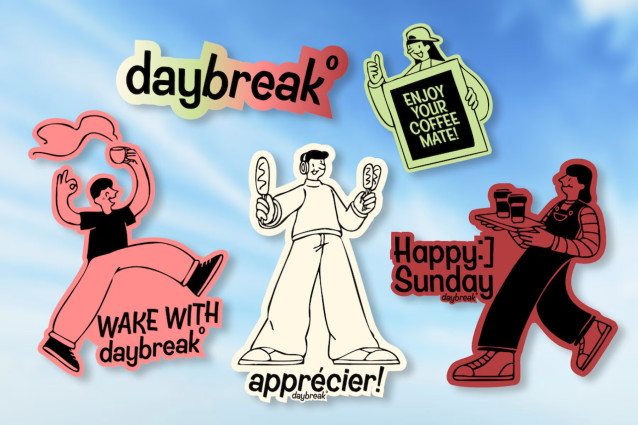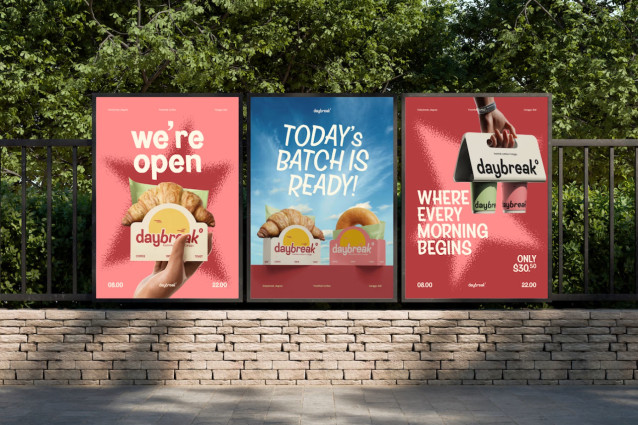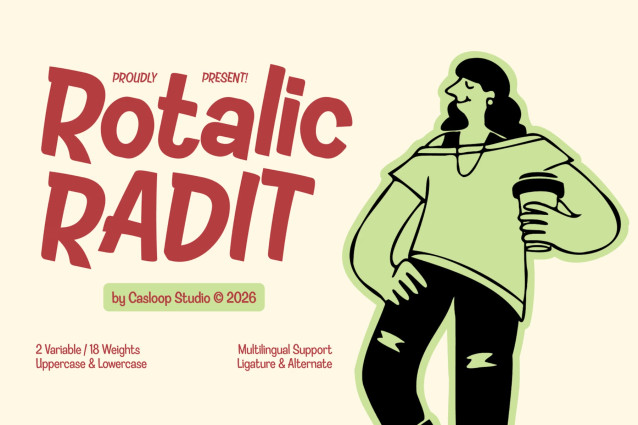
Rotalic Radit – Modern Rotalic Font
Rotalic Radit is a modern sign-inspired typeface that captures the energy of hand-crafted promotional lettering while maintaining the consistency needed for contemporary branding.
Its defining characters R, A, D, T, O, and S create a distinctive visual identity through fluid, attention-grabbing forms that feel spontaneous yet carefully structured. Inspired by classic sign painting and cafe culture, the typeface balances personality and readability, making it equally effective for packaging, food branding, promotional materials, and modern visual identities. Recommended pairing with: Oswald, Montserrat, Barlow, Franklin Gothic, Futura, Trade Gothic.